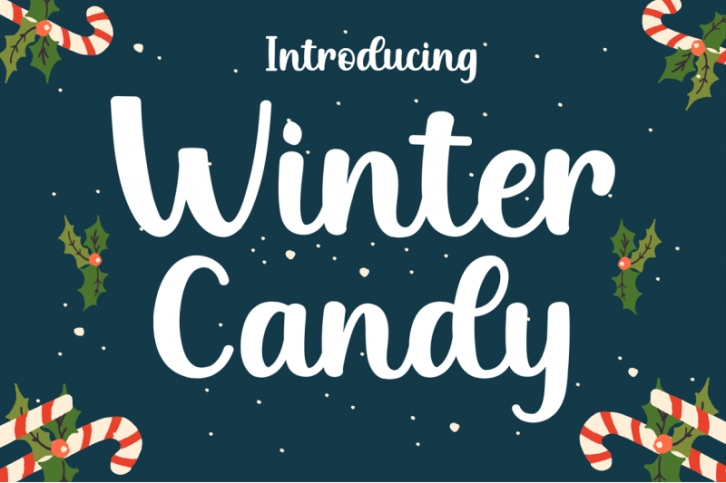
Winter Candy is a unique script font with simple-styled letters. Fall in love with its authentic feel and use it to create gorgeous wedding invitations, beautiful stationary art, eye-catching social media posts, and cute greeting cards